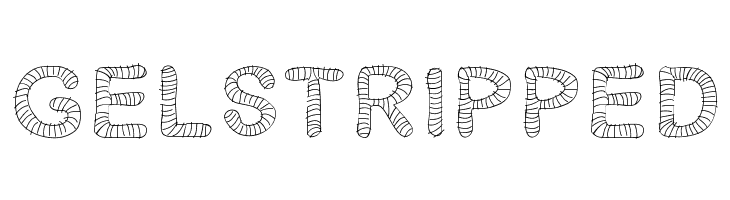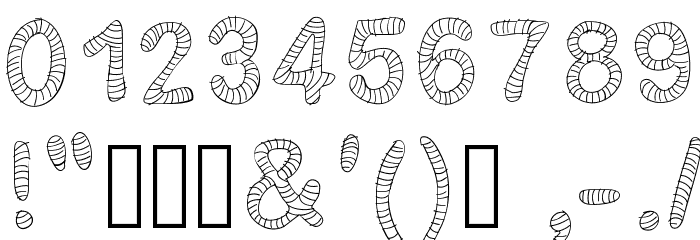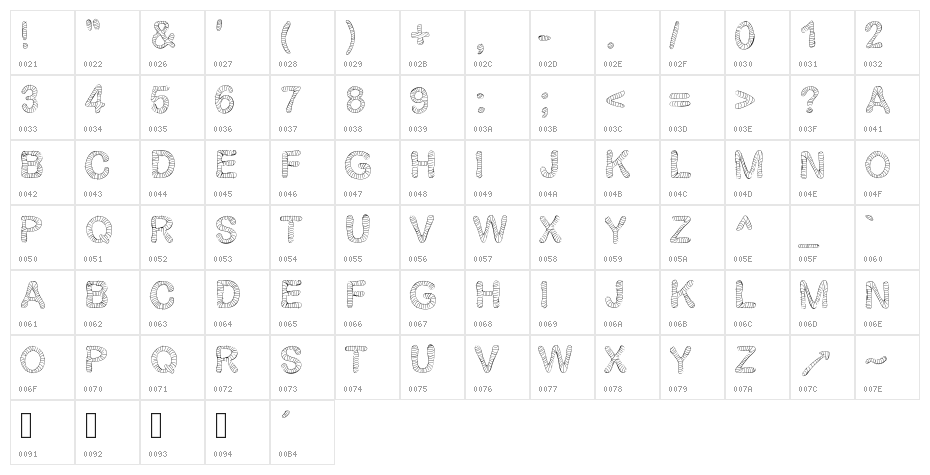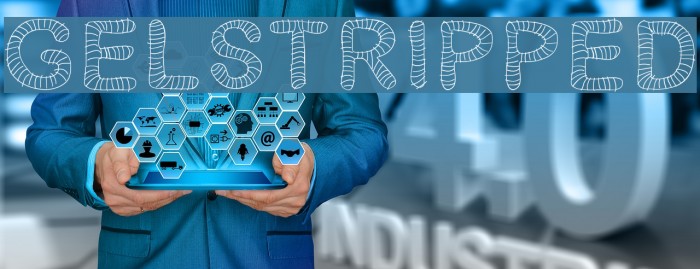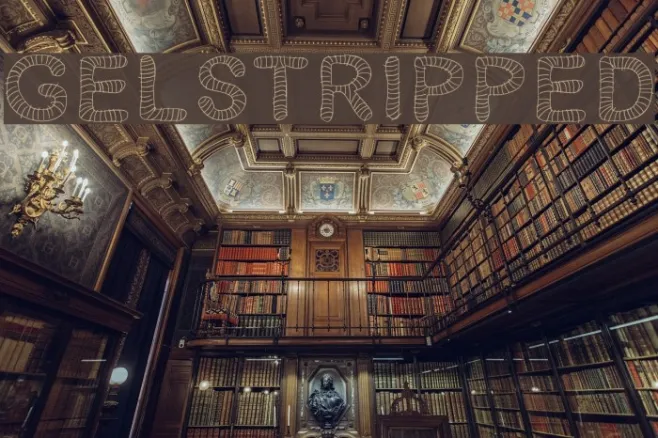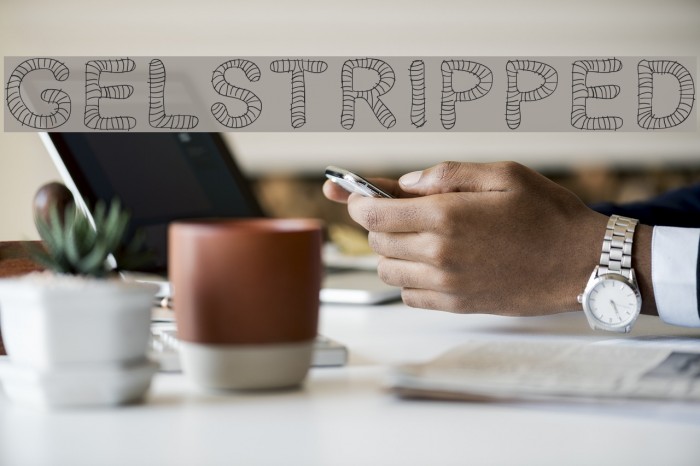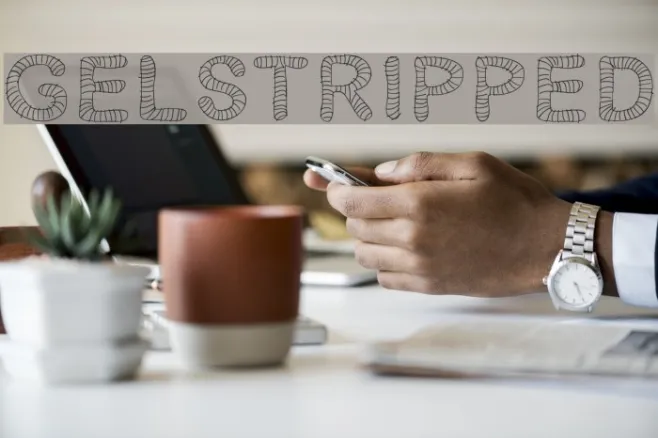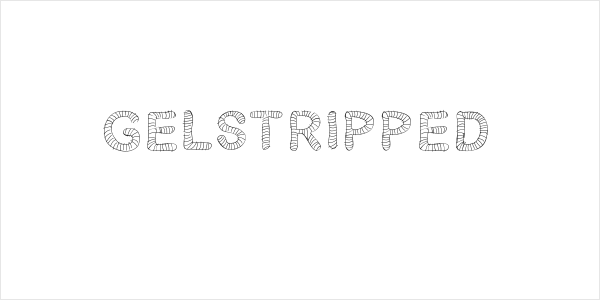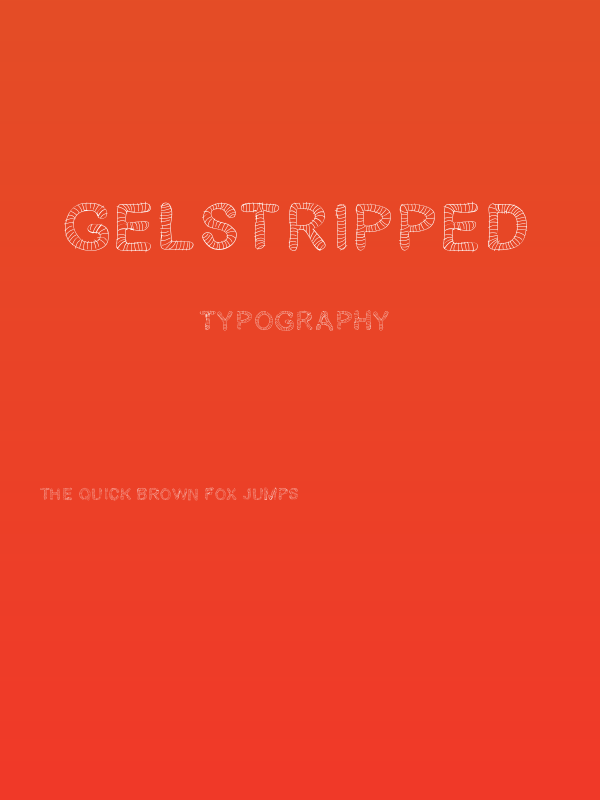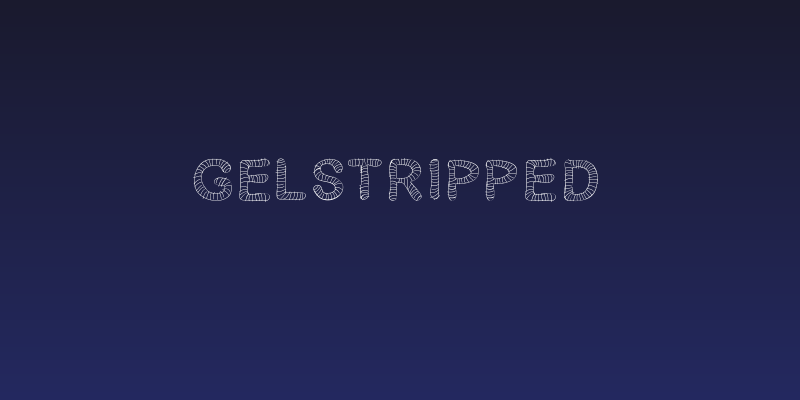
Gelstripped Font
Gelstripped Description
This font features a unique, decorative style with each character appearing as if it is wrapped in a series of horizontal stripes or bands. The design gives off a playful and whimsical vibe, making it stand out with its intricate detailing. The uppercase and lowercase letters maintain a consistent pattern, ensuring readability while adding a creative twist. The numerals and special characters follow the same striped theme, providing a cohesive look across all elements. This font's distinct appearance makes it ideal for projects that require a fun and engaging visual element.
| Proposed Projects | Ideal for children's book covers, playful branding, creative posters, and any project needing a fun, eye-catching typeface. |